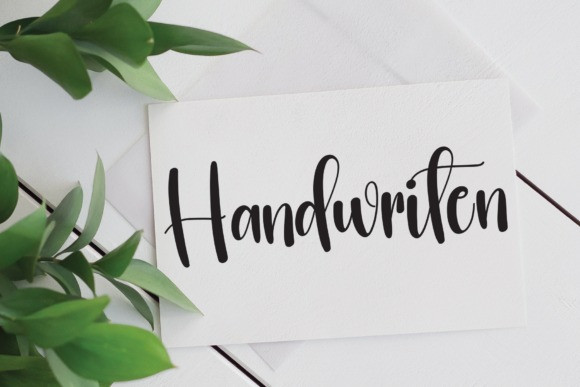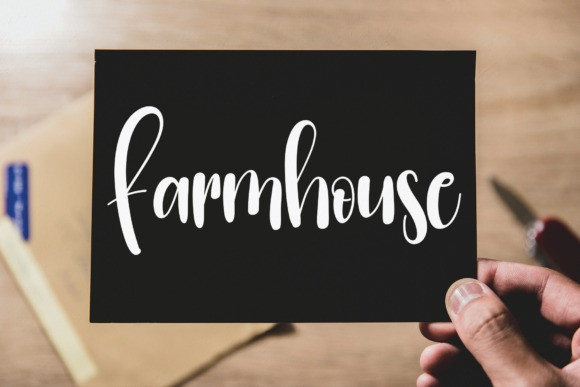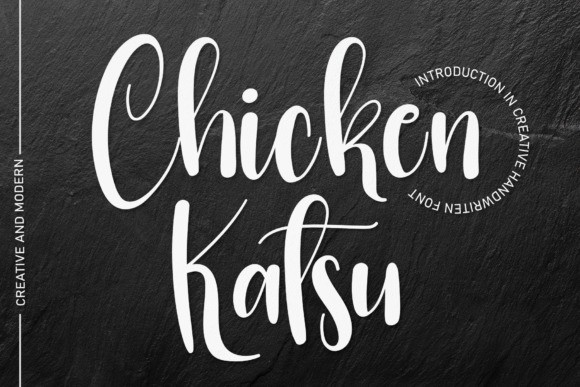
Chicken Katsu Font
Chicken Katsu Font is a lovely and timeless handwritten font. It is the best choice for creating eye catching logos, branding and quotes. Every letter has a unique and beautiful touch, which will make your design come alive!